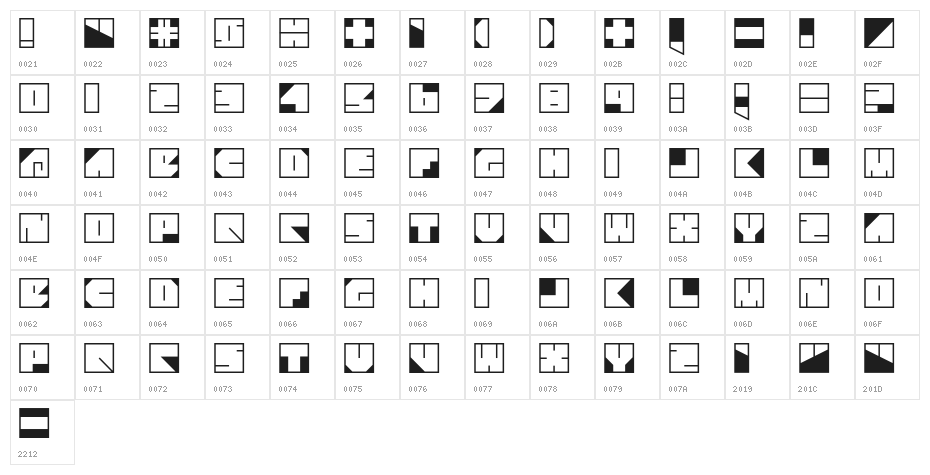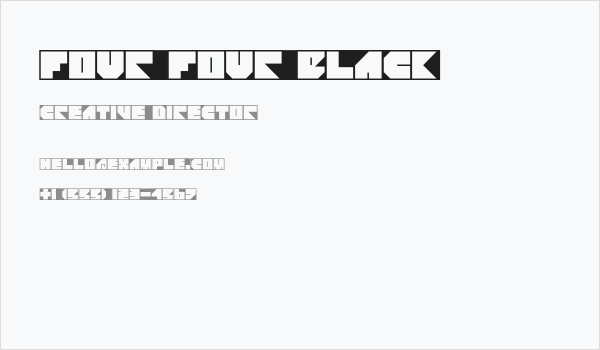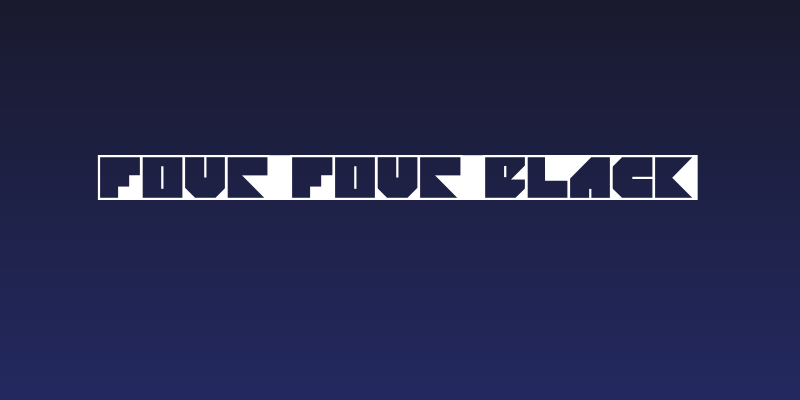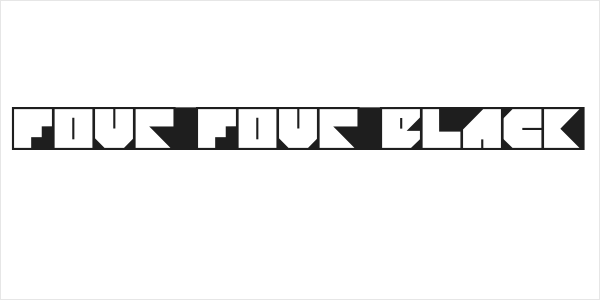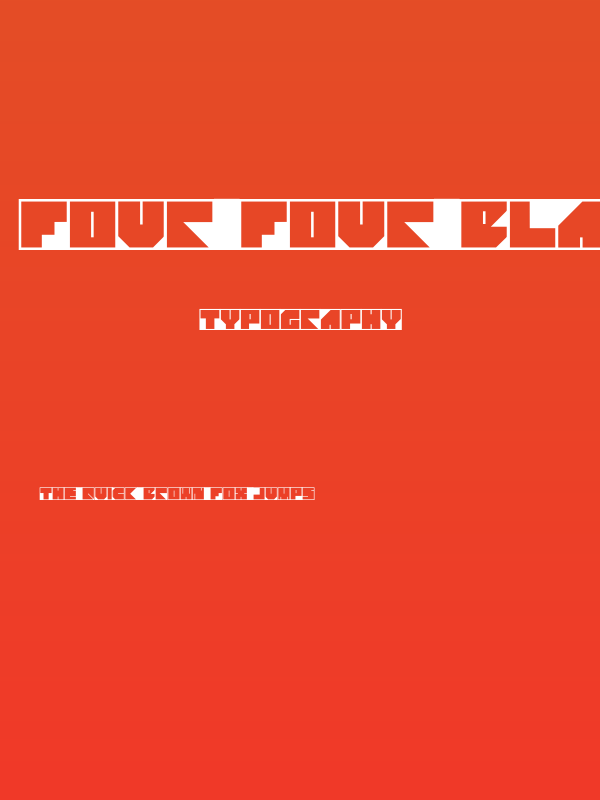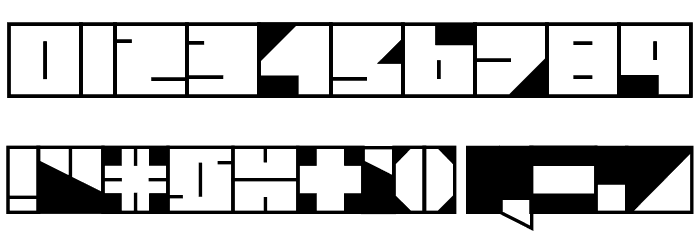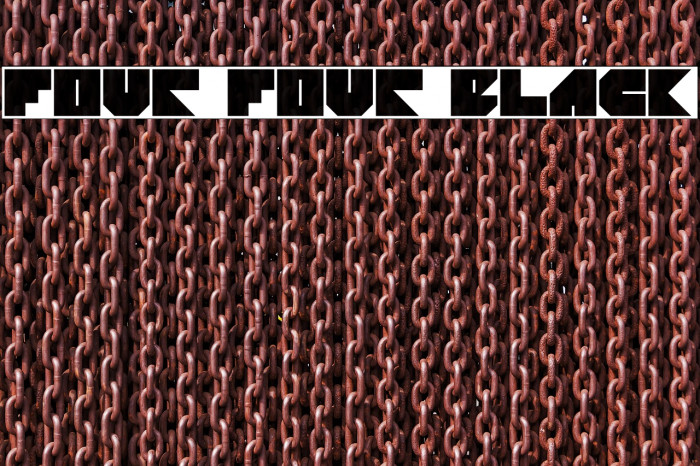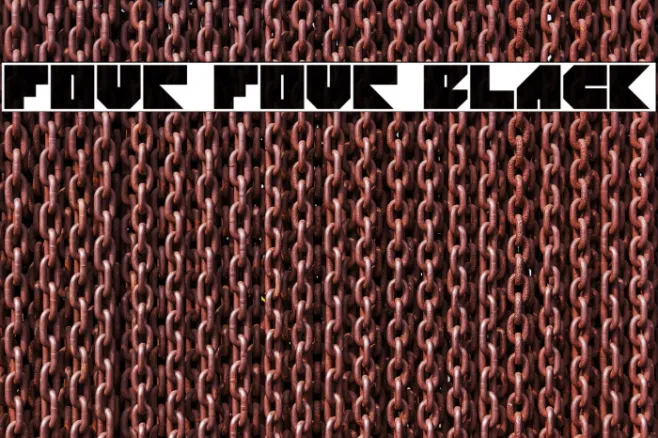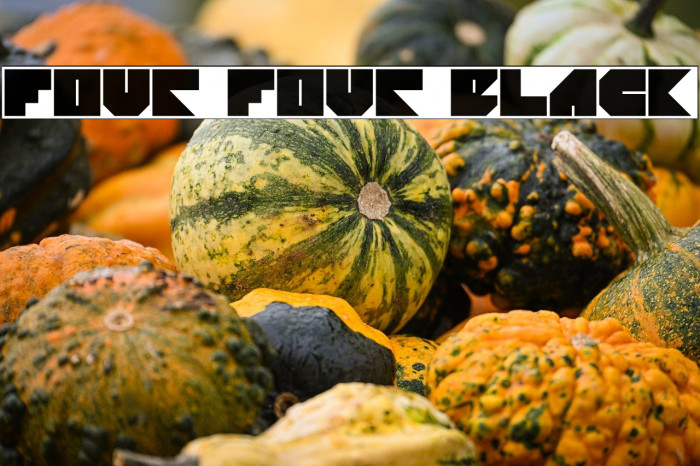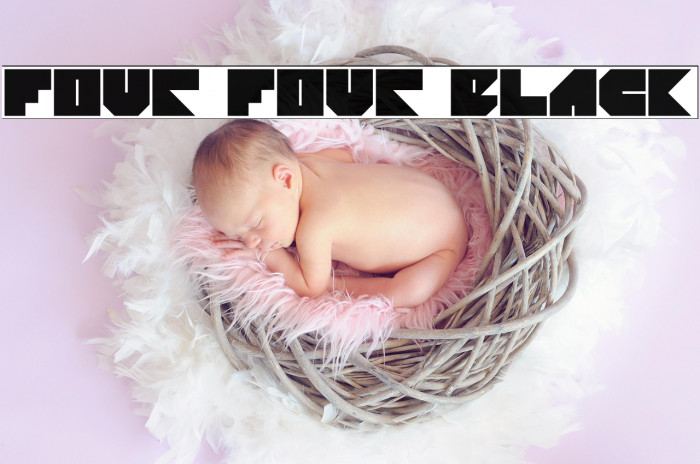
Four Four Black Font
Four Four Black Description
This font features a bold, geometric design with a strong emphasis on angular shapes and sharp edges. Each character is constructed with a combination of solid blocks and negative space, creating a striking visual contrast. The uppercase and lowercase letters maintain a consistent style, with a uniform height and width that contributes to a cohesive look. Numbers and special characters are designed with the same geometric precision, ensuring a seamless integration across all text elements. The font's unique style makes it ideal for projects that require a modern and edgy aesthetic.
| Proposed Projects | Ideal for modern branding, poster design, album covers, and digital media projects that require a bold statement. |